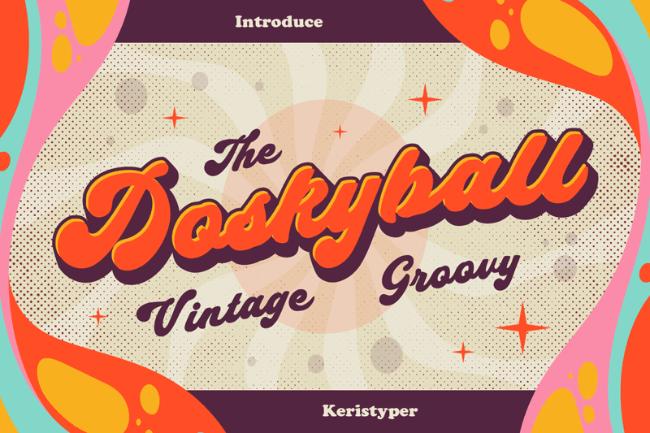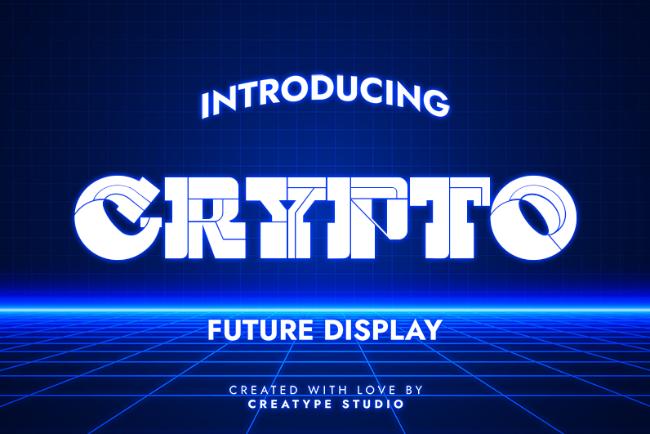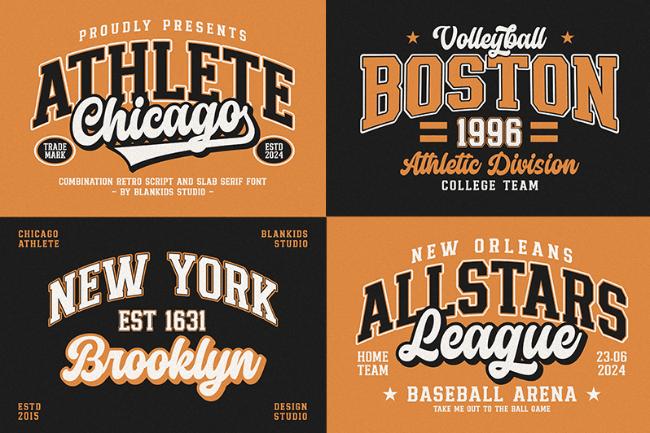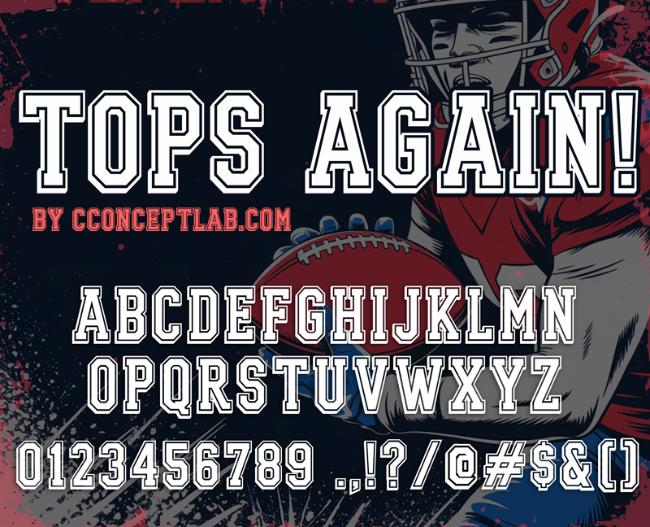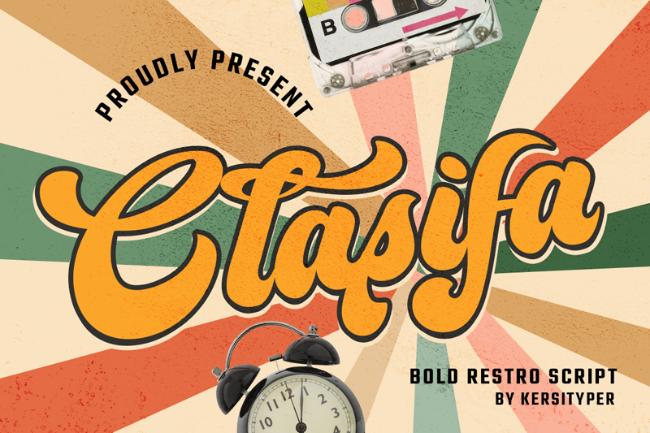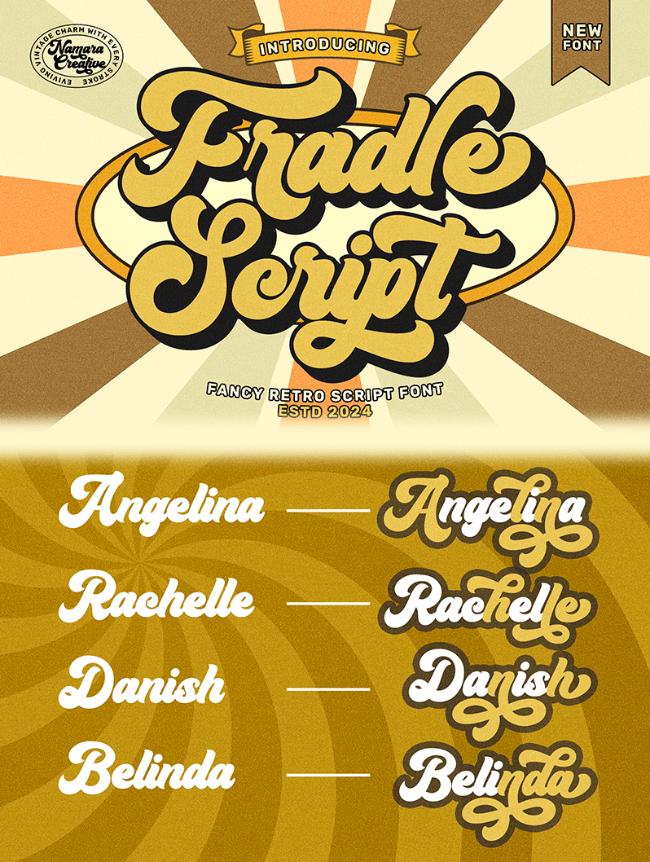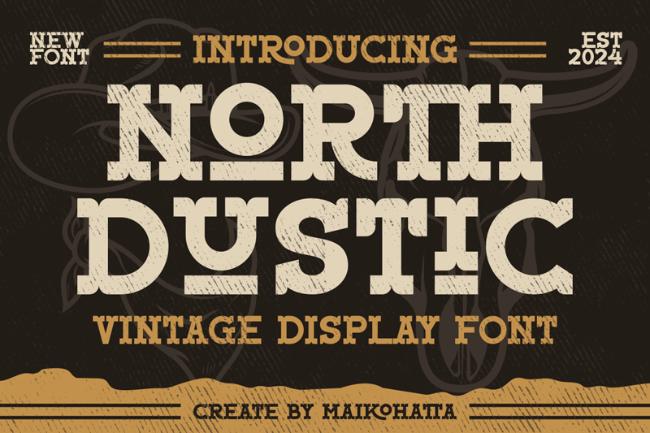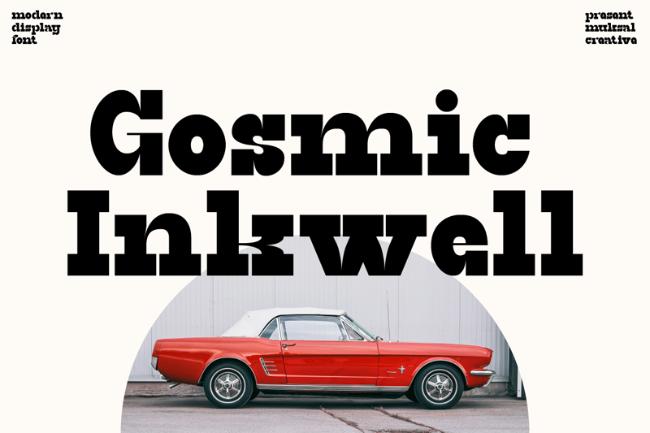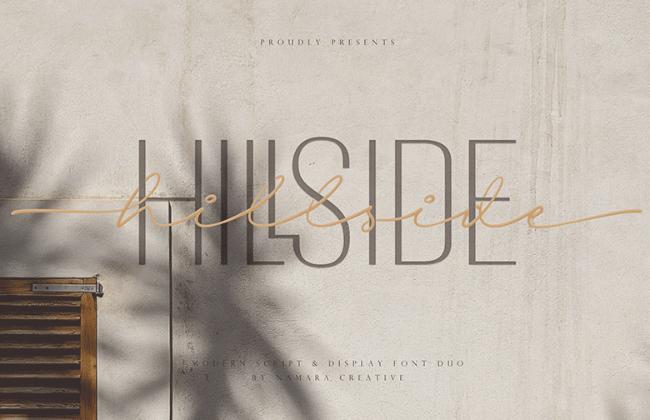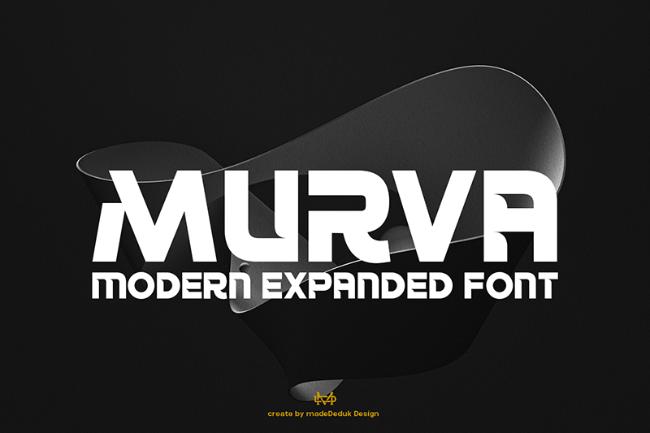
Free Fonts Released In August 2025 – Week 4
Free fonts are a designer’s best friend, and this week’s collection from the final week of August 2025 brings us an incredible selection of typography gems. These free fonts span everything from nostalgic retro scripts that transport you back to the groovy ’70s to cutting-edge futuristic displays that scream innovation, offering something special for every creative project.
Whether you’re working on vintage-inspired branding, modern tech startups, or anything in between, these 13 carefully curated free fonts will elevate your design game without breaking your budget. Each typeface comes with its own personality and use cases, perfect for logos, packaging, posters, and digital projects. The beauty of free fonts lies in their accessibility – they allow designers at any level to experiment with professional-quality typography. Let’s dive into this week’s standout free fonts that are already making waves in the design community.
Doskyball
Doskyball retro script font display showing curved letters with 1970s styling
Meet Doskyball, a groovy retro script that brings the authentic spirit of 1970s lettering to your modern designs. This versatile typeface captures the free-flowing energy of the disco era with its smooth curves and expressive character variations. What sets Doskyball apart is its comprehensive OpenType feature set, including stylistic alternatives and ligatures that let you create truly custom looks. Perfect for vintage logos, album artwork, fashion branding fonts, and any project that needs that unmistakable retro charm without feeling dated.
Clasifa
Clasifa bold retro script font showing thick letters with vintage typography styling
Clasifa delivers the bold confidence of vintage American signage with a contemporary twist. This heavyweight script draws inspiration from the golden age of advertising typography, when bold lettering dominated storefronts and posters. The font’s thick strokes and confident curves make it ideal for projects that need to make a statement. From craft beer labels to barbershop branding, Clasifa works beautifully wherever you need that perfect blend of nostalgia and authority.
Fradle Script
Fradle Script retro bold font showing vintage-style cursive lettering with modern appeal
Fradle Script strikes that sweet spot between vintage authenticity and modern sophistication. This bold script font channels the confident lettering of mid-century advertising while remaining perfectly readable in today’s digital landscape. The typeface’s robust character makes it excellent for headlines, branding materials, and any design that needs to convey both heritage and reliability. Whether you’re designing for a classic restaurant or a boutique whiskey brand, Fradle Script delivers that timeless appeal audiences love.
North Dustic
North Dustic modern serif font displaying balanced thick and thin strokes with elegant typography
North Dustic brings editorial elegance to the world of display typography. This sophisticated serif masterfully balances dramatic thick strokes with delicate thin lines, creating a rhythm that’s both commanding and graceful. The font’s refined proportions make it perfect for luxury branding, magazine headers, and any project where you need to convey premium quality. Its versatility shines in both large display sizes and smaller text applications, making it a valuable addition to any designer’s toolkit.
Gosmic Inkwell
Gosmic Inkwell futuristic display font showing cosmic-inspired letters with modern design elements
Step into the future with Gosmic Inkwell, a display font that captures the limitless possibilities of space-age design. This innovative typeface draws inspiration from cosmic phenomena and cutting-edge technology, resulting in letterforms that feel both otherworldly and surprisingly approachable. The font’s unique character shapes make it perfect for tech startups, science fiction projects, and brands that want to position themselves at the forefront of innovation. Every letter tells a story of exploration and discovery.
Hillside
Hillside font duo showing clean sans serif paired with elegant script font for versatile design options
Hillside offers the best of both worlds with its thoughtfully paired font duo. The clean, minimalist sans serif provides the perfect foundation for modern communication, while the accompanying script font adds just the right touch of personality and warmth. This combination works beautifully for wedding invitations, boutique branding, and lifestyle brands that need to balance professionalism with approachability. The fonts complement each other naturally, giving designers endless possibilities for creative typography layouts.
Santiole Script
Santiole Script decorative font with ornate flourishes and theatrical lettering style
Santiole Script brings theatrical drama to your typography with its ornate flourishes and celebratory spirit. Each letterform features distinctive terminal decorations that evoke grand theater marquees and festive signage from bygone eras. The high contrast between thick and thin strokes creates a dynamic rhythm that commands attention while maintaining excellent readability. This font shines brightest in applications where you want to create a sense of occasion and grandeur.
Tops Again! brings the classic spirit of college typography to your designs with its distinctive shadow styling and varsity-inspired letterforms. This all-caps typeface delivers instant recognition and school pride appeal, making it perfect for university merchandise, sports teams, and educational branding. The built-in shadow effect adds depth and dimension without requiring additional design work. Available as a free font for personal use, Tops Again! offers professional quality for student projects and non-commercial applications.